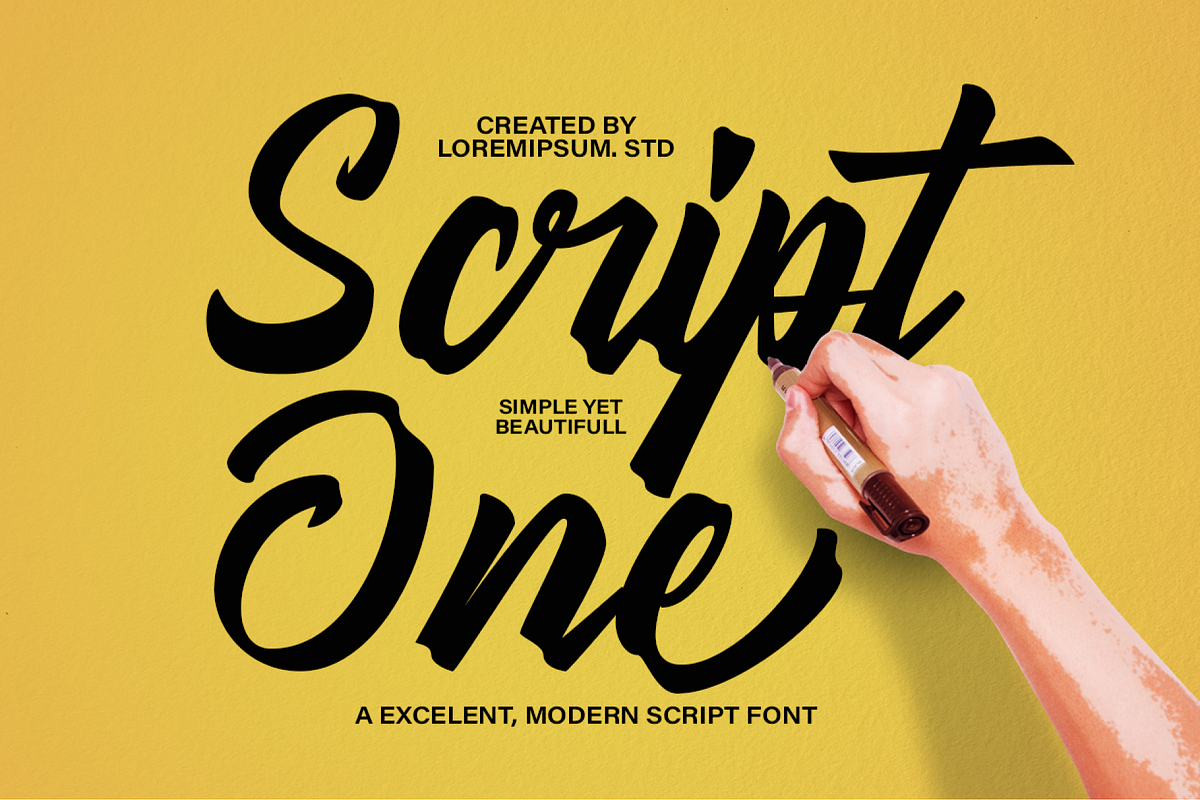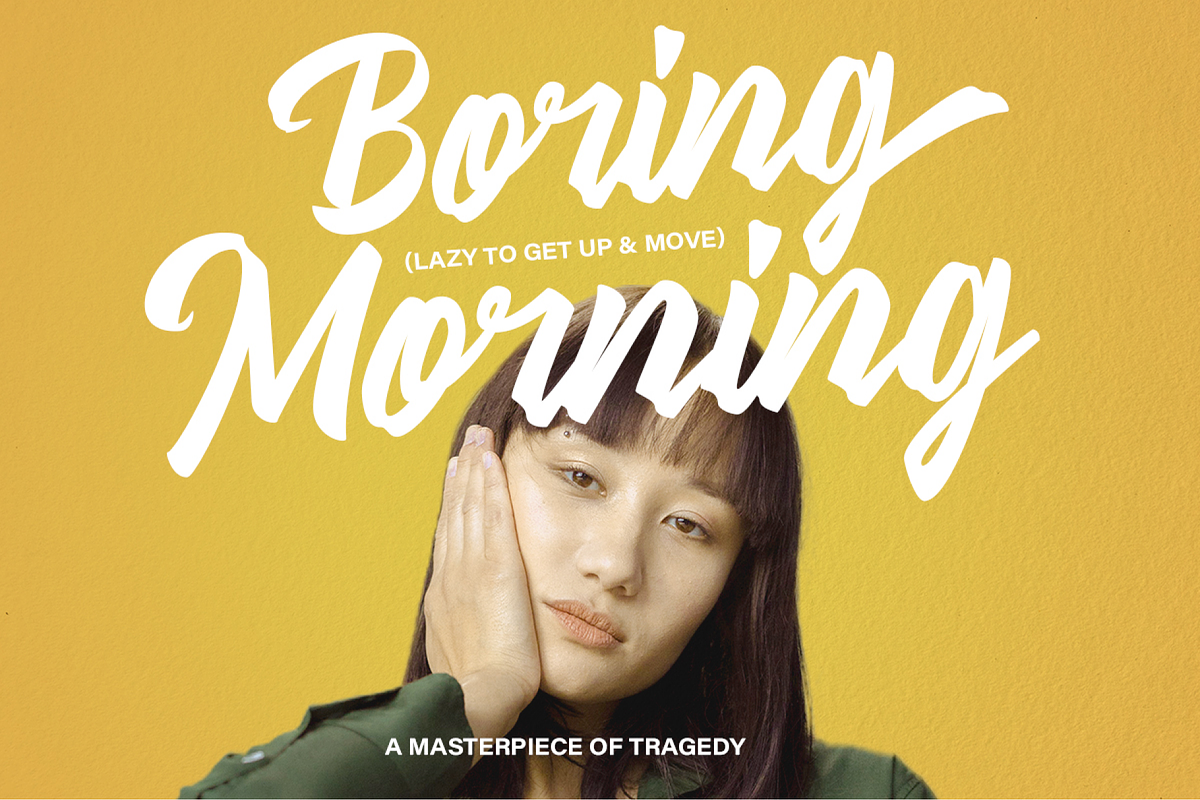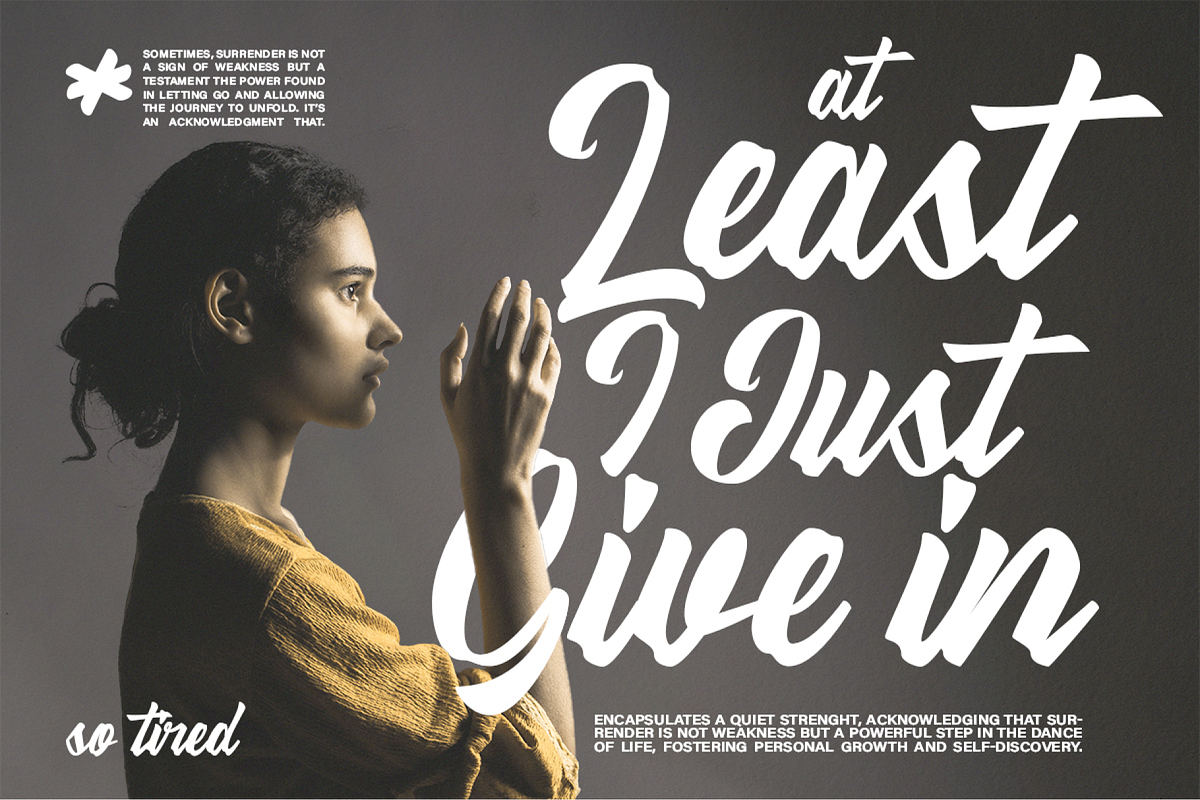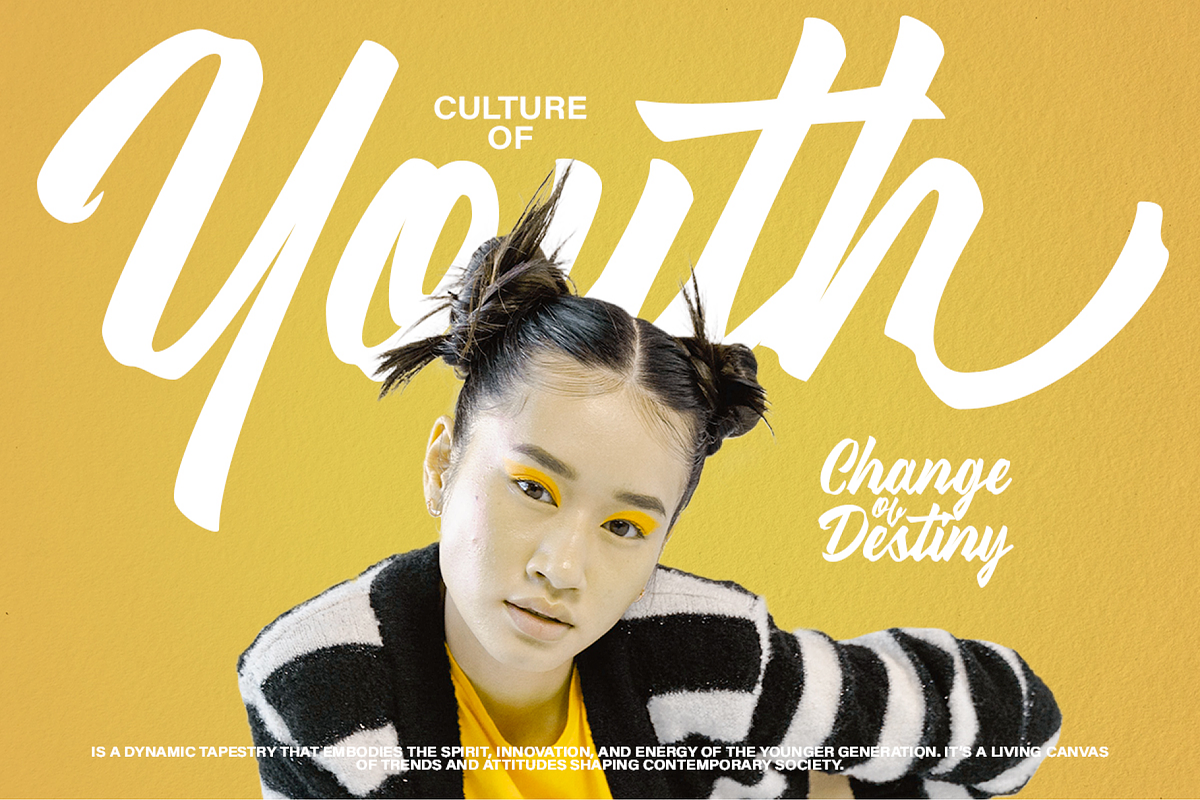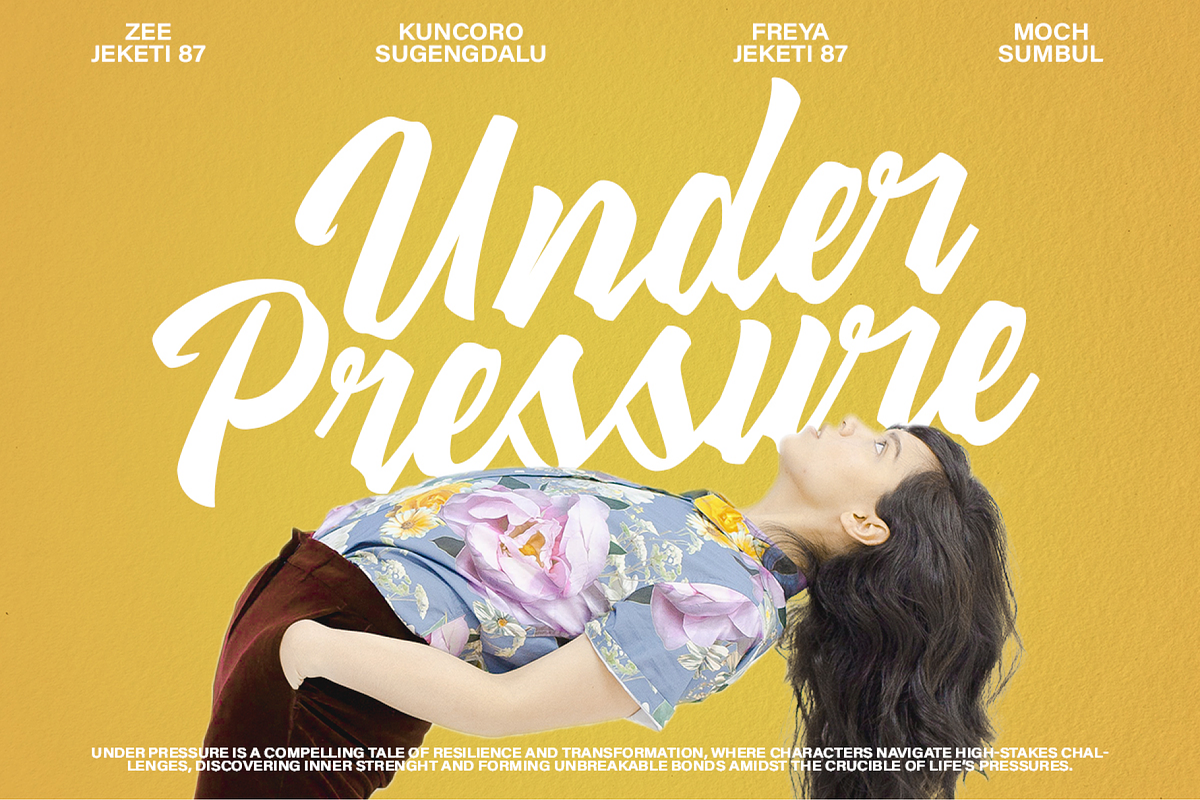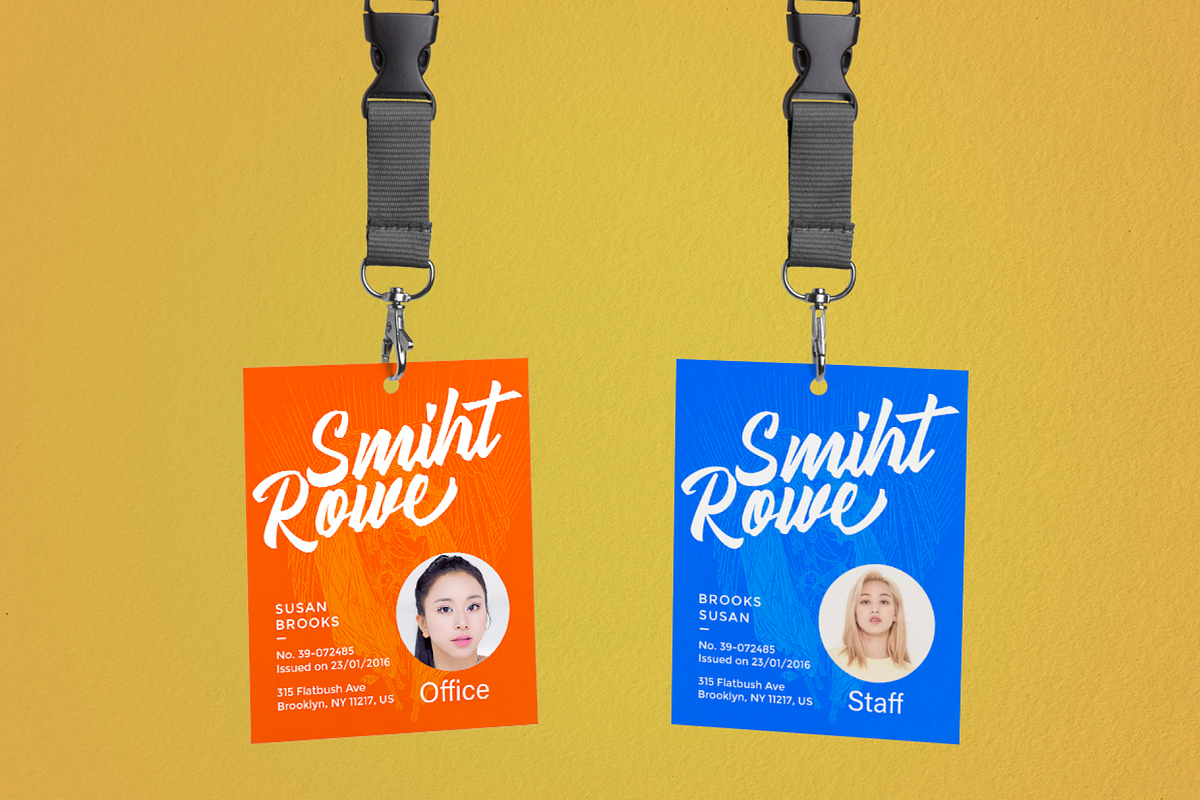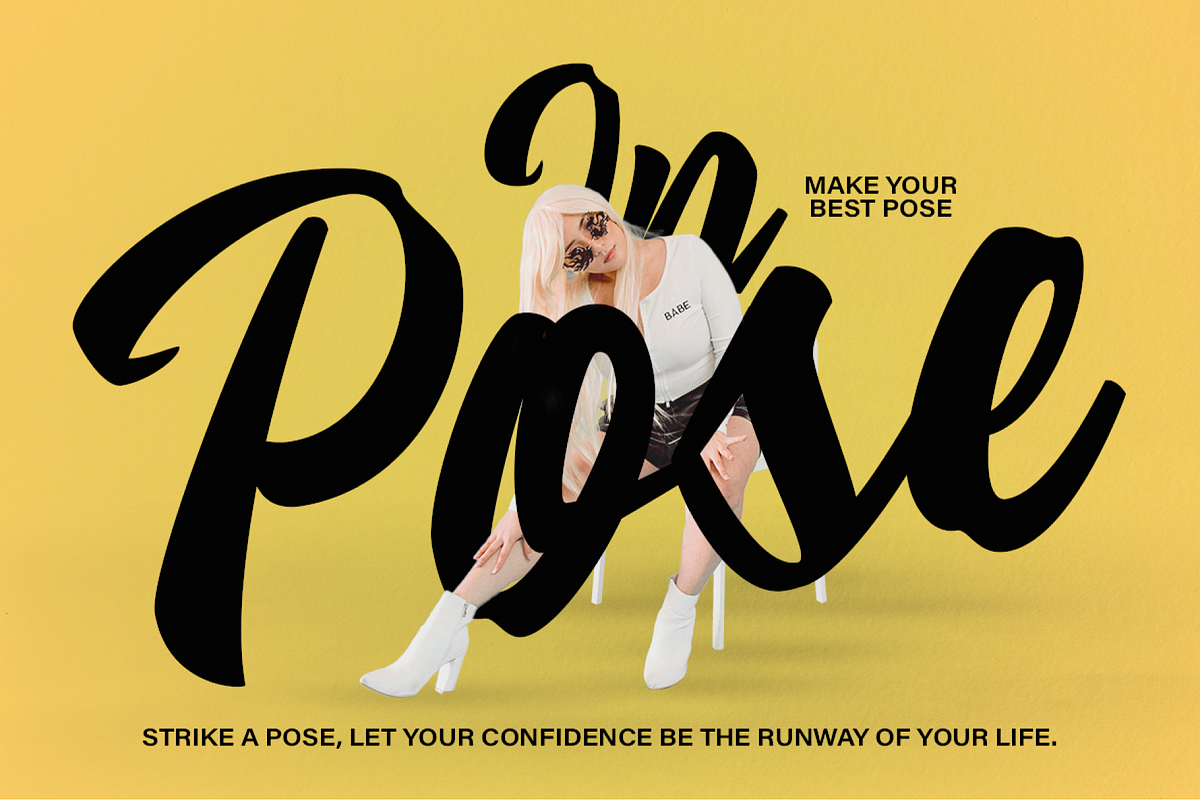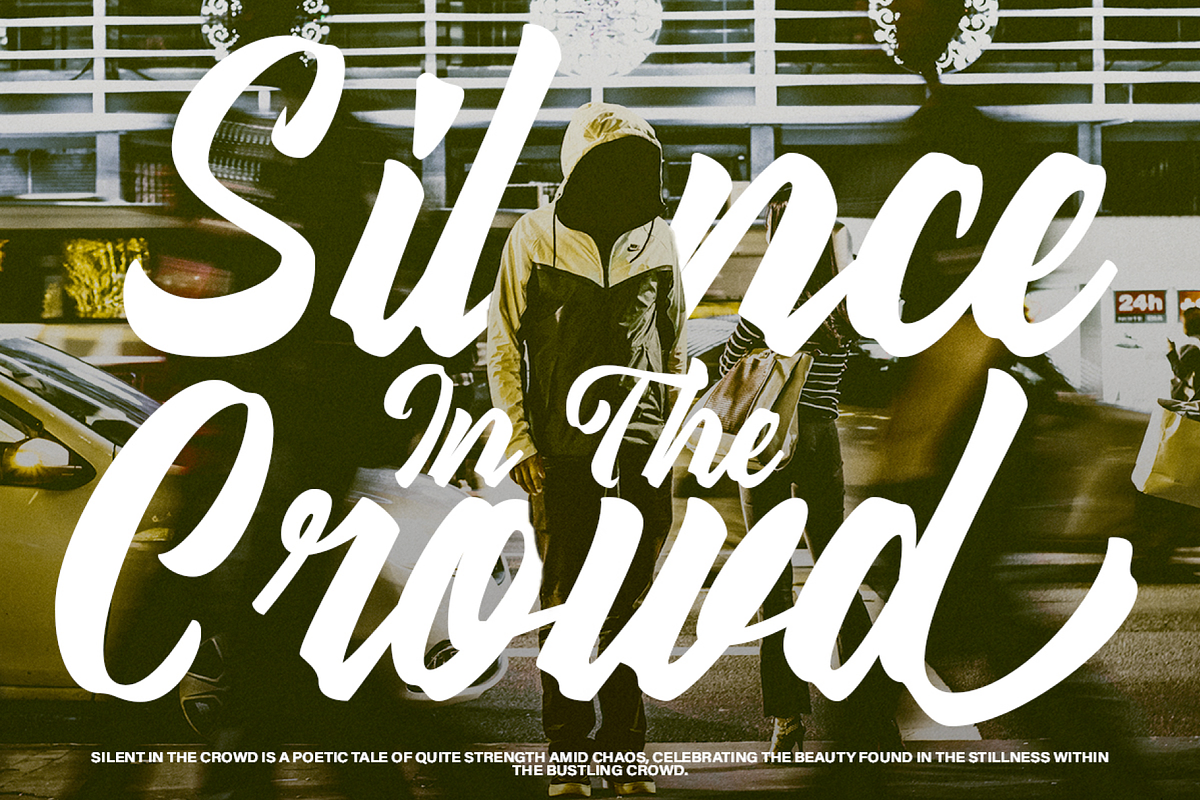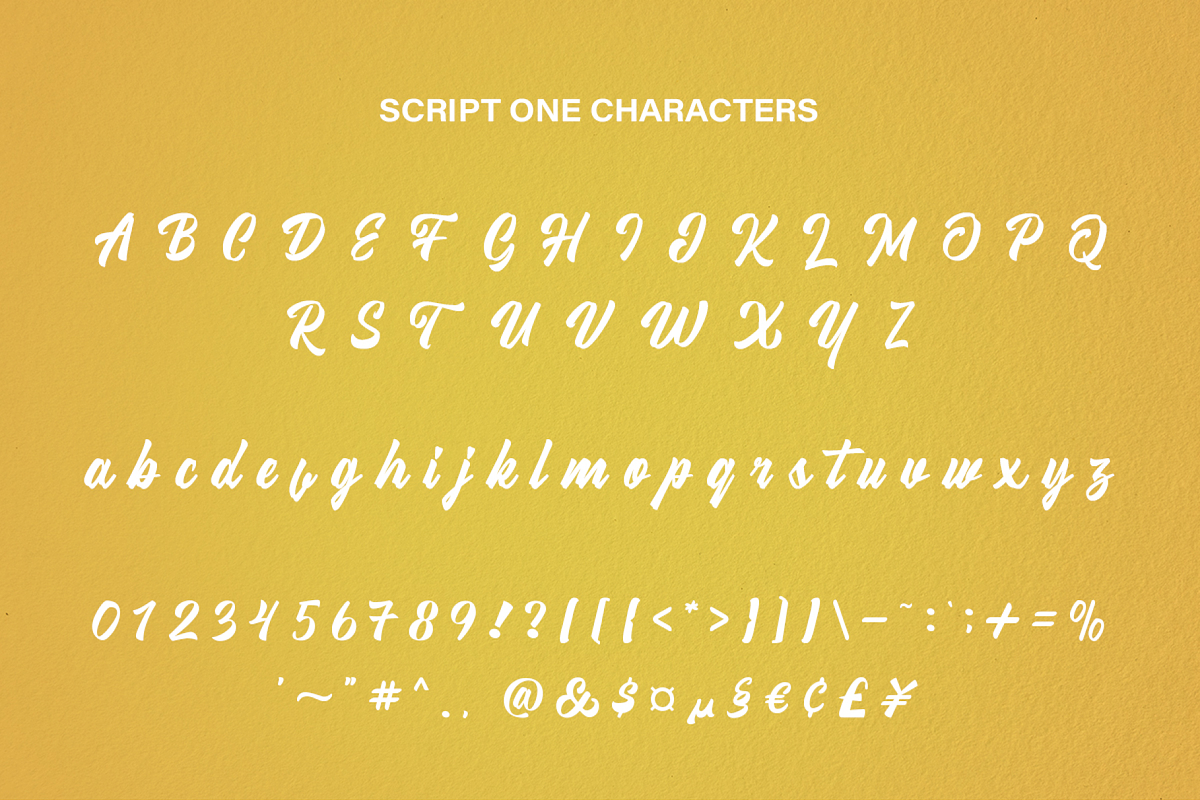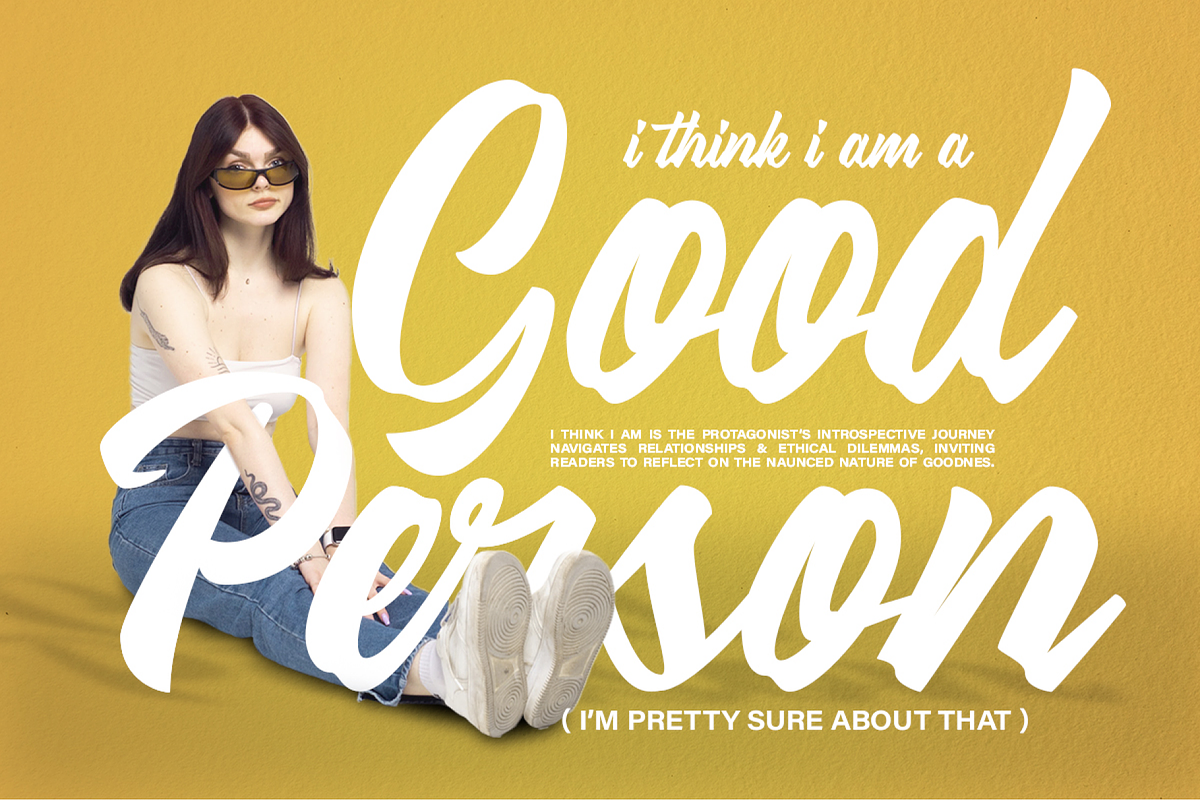
Hendritage Modern Script Font
Hendritage Modern Script Font typeface excellent used for the manufacture quote text, logotype, header magazine, t-shirt design and many more.
Main Features
- Ligatures & Alternate
- Numeral & Punctuations